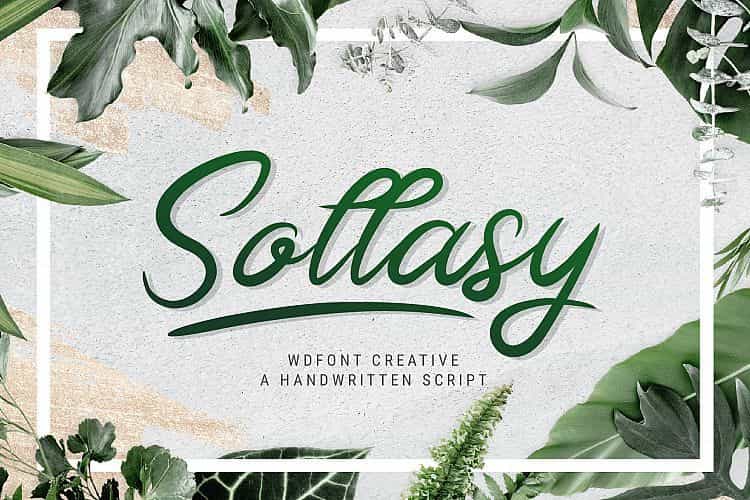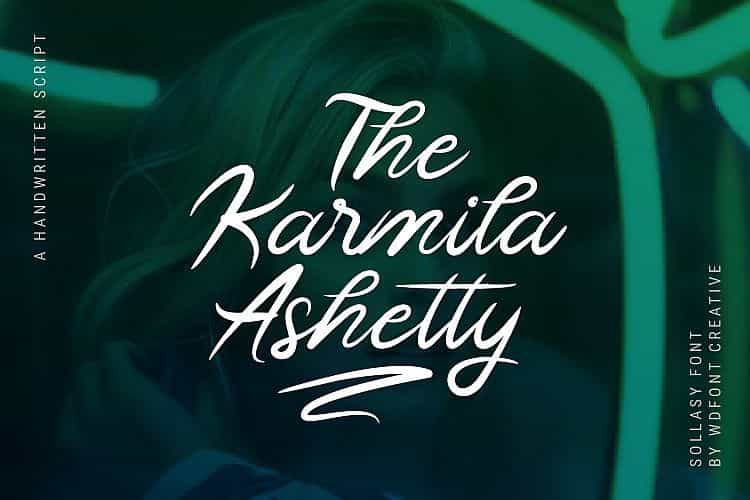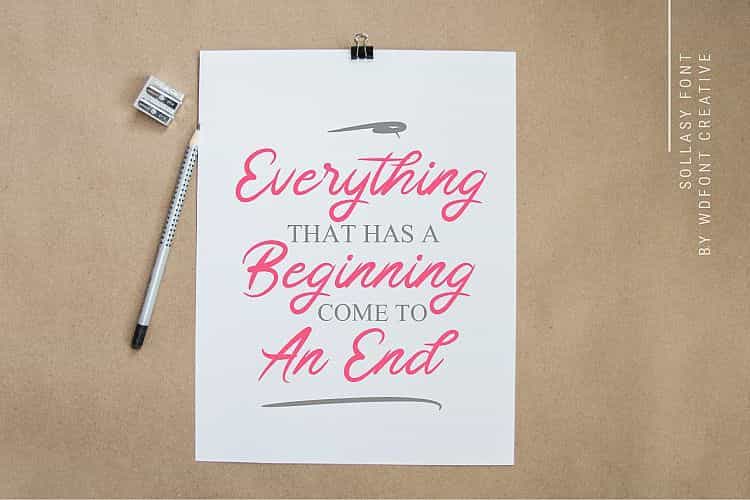
Sollasy is an absolutely adorable and whimsical handwritten font that will give a cute twist to any design you have in mind. Get to like its jesting nature. The other characters were then divided into different Open Type features like Swash, Stylistic Sets, Stylistic Alternates, Contextual Alternates.